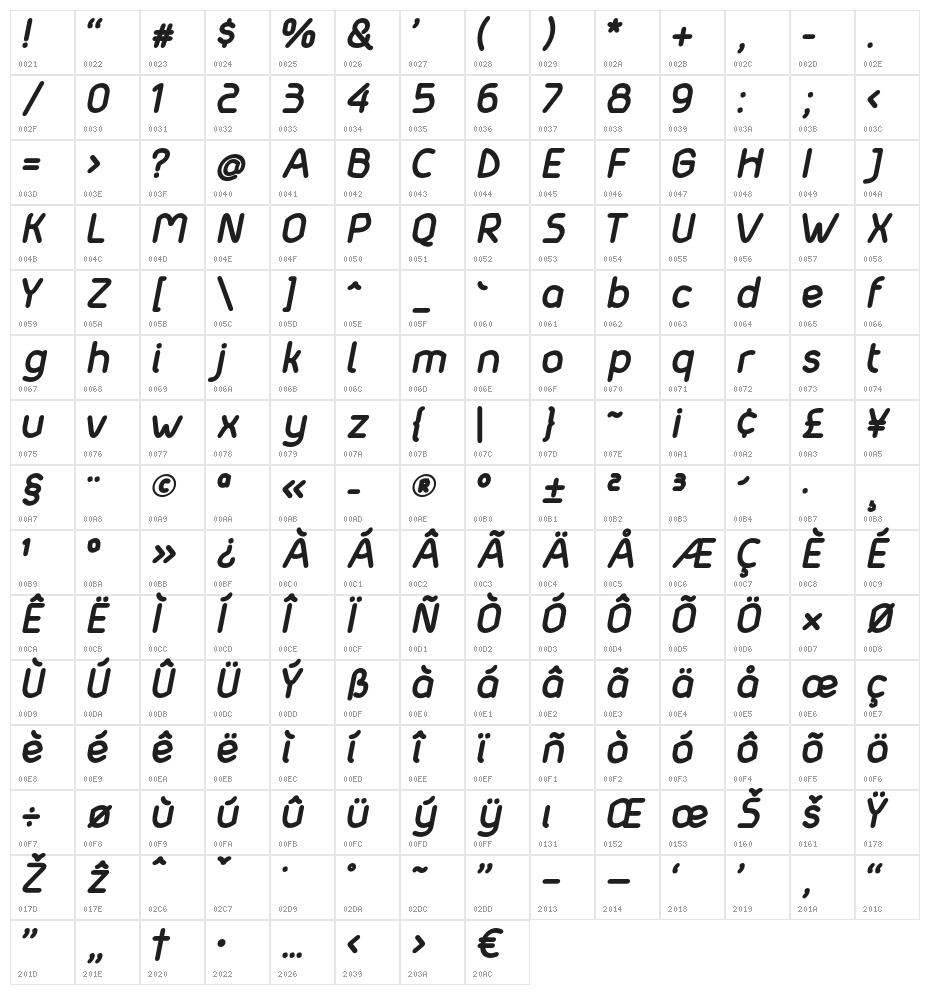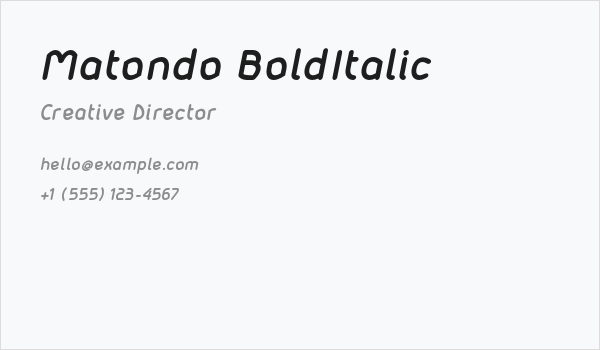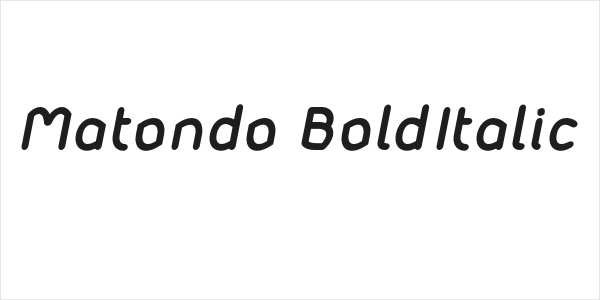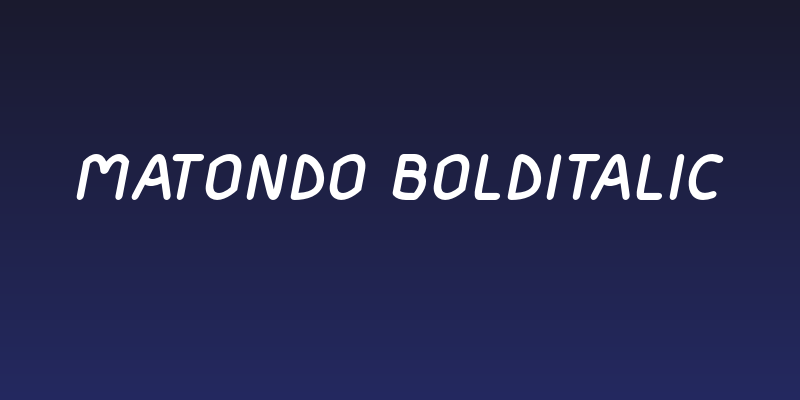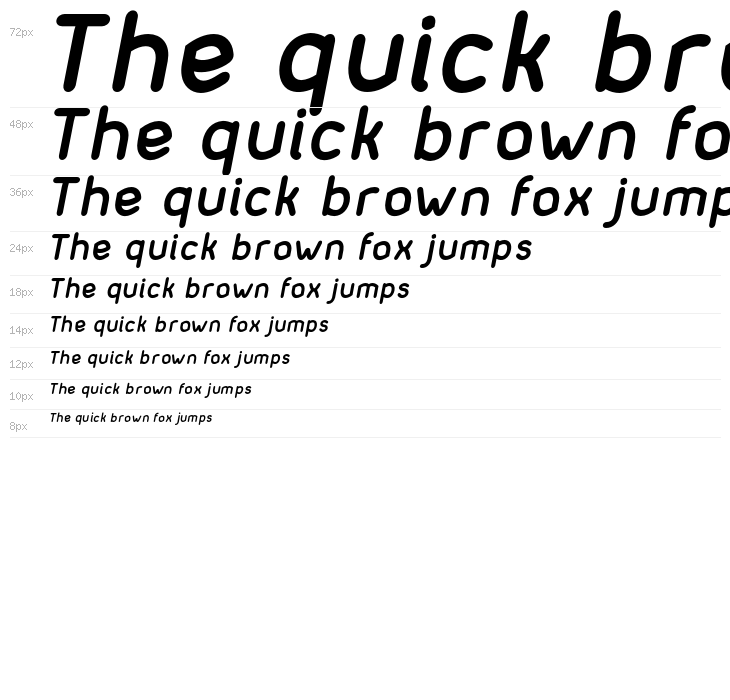
Matondo BoldItalic Font
Matondo BoldItalic Description
This font features a bold and italicized style with smooth, rounded edges that give it a friendly and approachable appearance. The characters are slightly slanted, enhancing the italic effect, while maintaining a consistent thickness throughout, which contributes to its boldness. The rounded terminals and uniform stroke widths provide a modern and clean look, making it suitable for a variety of design applications. The numerals and special characters are designed to match the overall style, ensuring visual harmony across different text elements.
| Proposed Projects | Ideal for branding, advertising, and packaging design where a friendly and modern look is desired. |